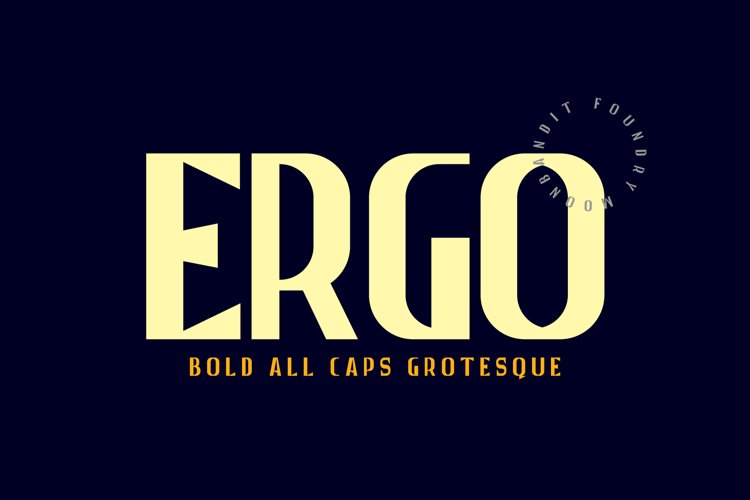
Ergo - Bold All caps grotesque
MBF Ergo
A versatile grotesque typeface, all caps, bold, tall, a bit of vintage feel. Perfect for logo, title, display, headline, and many more.